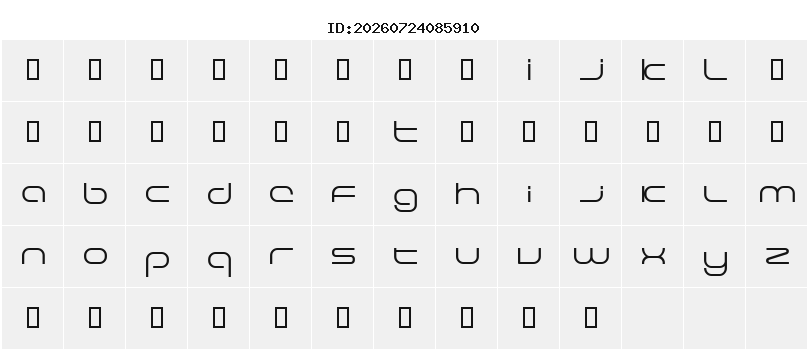
Excellence Preview
• Font Name: Excellence
• Font Style: LightExtended
• Font ID: Macromedia Fontographer 4.1.5 Excellence LightExtended
• Full Font Name: Excellence LightExtended
• Version: Macromedia Fontographer 4.1.5 29.05.2001
• PostScript Name: ExcellenceLightExtended
• Character Count: 38
About Excellence.ttf
Excellence.ttf is a modern, elegant sans-serif font designed for ultimate readability and visual harmony. Perfect for branding, headlines, web design, and print materials.